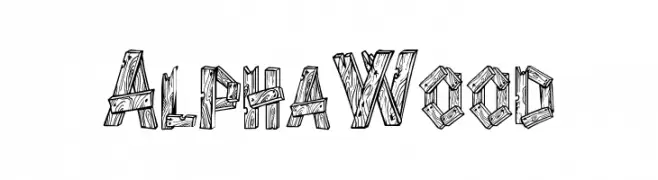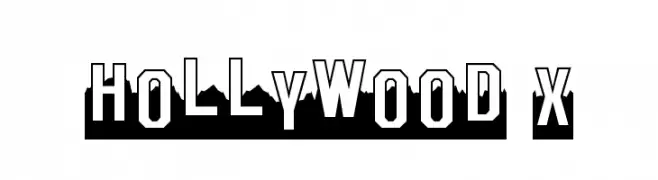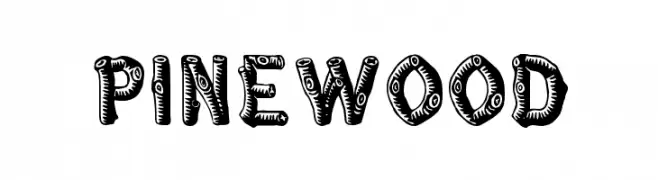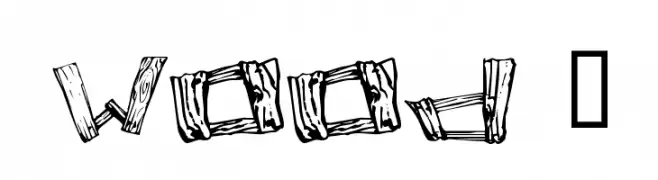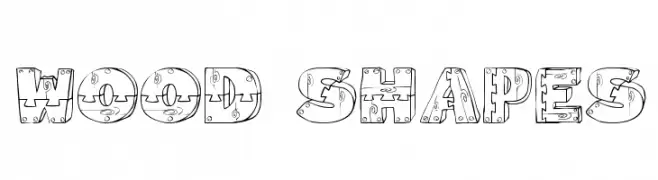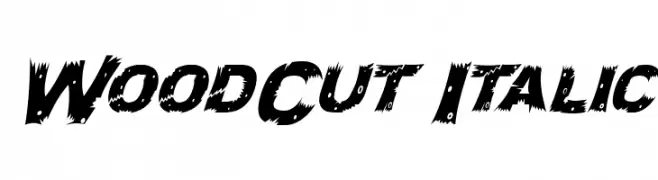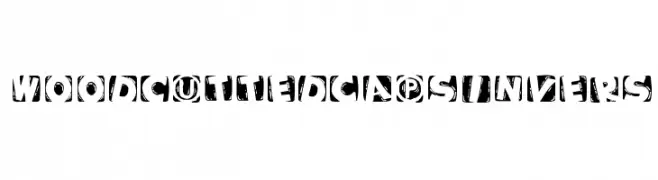
A rustic, handcrafted font with a woodcut print style.
A bold, geometric font inspired by the Hollywood sign, perfect for dramatic headlines.
A rugged, textured font with a splintered wood appearance.
A playful, wood-textured font with a rustic, handcrafted appearance.
A rustic, handcrafted font with an organic, woodcut appearance.
A bold, playful woodcut-style font with a handcrafted, rustic appearance.
Not a valid font; this is a fingering chart for woodwind instruments.
A symbolic font for saxophone tablature notation using geometric shapes.
Woodwind fingering chart graphic, not a text font.
A playful, wood-textured decorative font with a handcrafted feel.
A rugged, distressed font with a hand-drawn, brush stroke appearance.
A bold, distressed font with a vintage, grunge aesthetic.
A bold, textured font with a distressed, handcrafted appearance.
A bold, blocky font with a woodcut style, enclosed in squares.
A bold, woodgrain-textured font with a rustic, decorative style.
A classic, elegant script font with vintage Hollywood flair.
A bold, oblique font with a vintage woodtype feel, perfect for impactful designs.
A bold, impactful typeface with a vintage woodtype aesthetic.
A decorative font with a wooden plank design, offering a rustic and handcrafted aesthetic.
A decorative font with intricate wood-like textures in each character.
A bold, woodcut-style font with horizontal lines and a vintage-modern appeal.
A bold, woodcut-inspired font with intricate detailing and a three-dimensional effect.
A bold, three-dimensional woodcut style font with textured, shadowed letters.
A bold, basketball-themed decorative font with dynamic swoosh elements.
A bold, distressed font with a playful, rustic style.
A runic-inspired font with angular, hand-drawn strokes, evoking historical depth.
A bold, textured font with a rugged, woodcut-like appearance.